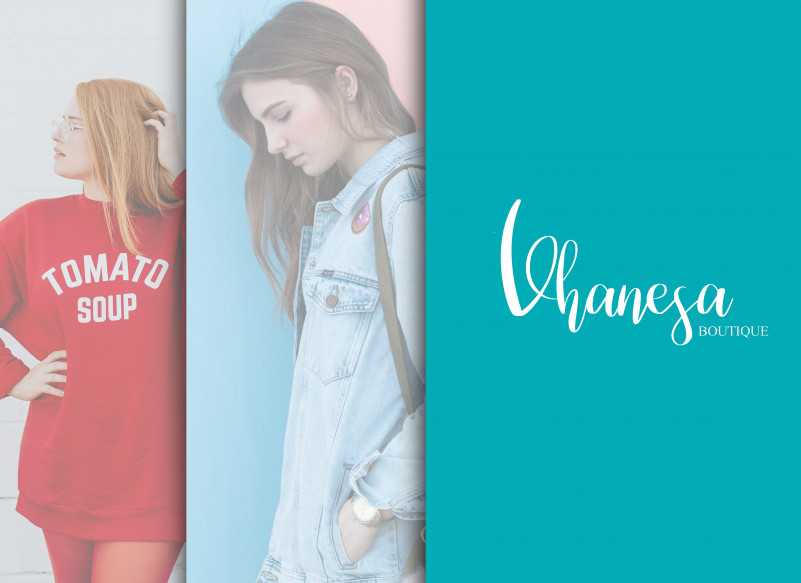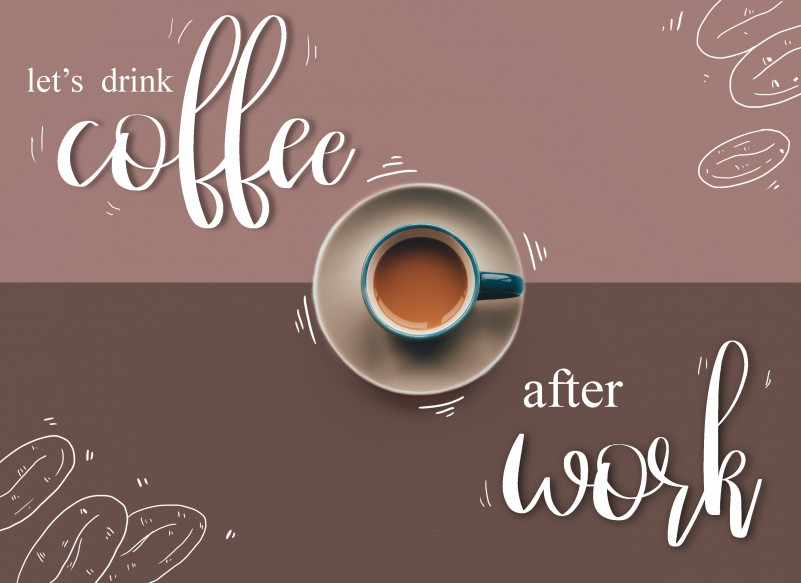
Hestia Calligraphy Font
Hestia Calligraphy Font is a beautiful and light script font with an amazing feel. It will turn any design project into a stand out!